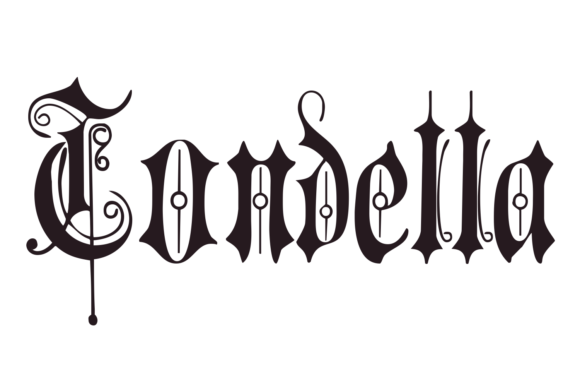
Unleash the Timeless Elegance of Tondella: A Display Font Rooted in History
Journey back to the era of grand cathedrals and chivalrous knights with Tondella, a display font that exudes classic Gothic charm. Meticulously remastered by Intellecta Design, Tondella breathes new life into the beauty of medieval typography, offering a touch of sophistication and elegance to your digital creations.
With its strong, bold strokes and distinctive serifs, Tondella commands attention wherever it graces the page. Its tall ascenders and descenders create a captivating rhythm, drawing the eye across your designs. Whether crafting logos, posters, invitations, or website headers, Tondella's presence adds an air of sophistication and historical intrigue.
Beyond its visual appeal, Tondella is also a versatile performer, accommodating a wide range of design styles. Its timeless aesthetics seamlessly blend with modern design elements, creating a striking contrast that captivates audiences. Experiment with different colors, backgrounds, and layouts to discover Tondella's endless creative possibilities.
Embrace the Legacy of Tondella: A Font Steeped in History and Ready for the Future
Tondella carries the legacy of centuries-old Gothic scripts, yet it remains remarkably adaptable to the demands of contemporary design. Its carefully crafted characters retain the charm and authenticity of the past while seamlessly integrating into the digital realm.
By choosing Tondella, you become part of a rich typographic tradition, connecting your designs to the artistry of bygone eras. Whether you're a seasoned designer or just starting your creative journey, Tondella empowers you to create designs that resonate with timeless appeal.